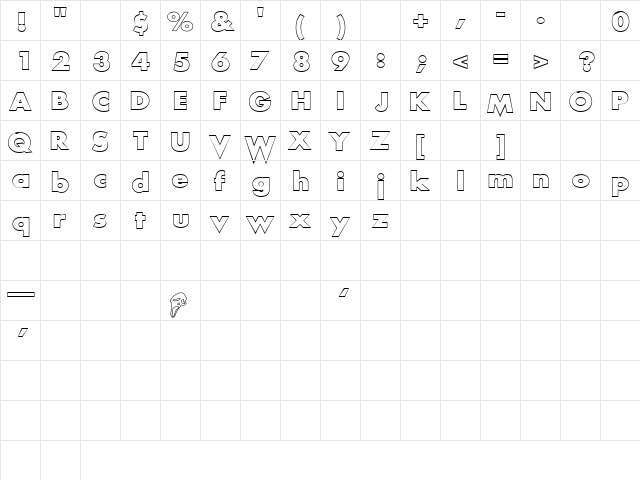
Scream alternative outlined Regular
Scream alternative outlined is built around its visual character rather than neutral utility — its distinctive forms are designed to make an impression at display sizes.
Font Pairing: Pair with a clean neutral sans-serif for body copy to let Scream alternative outlined's character lead without overwhelming the composition.
Pro Tip: Use Scream alternative outlined exclusively at display sizes — it was designed to be seen, not read at length. Let a neutral companion handle body copy.